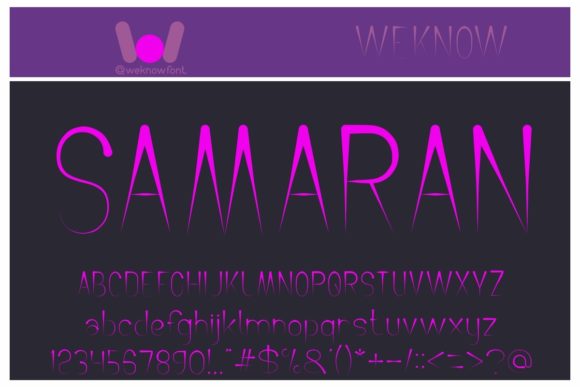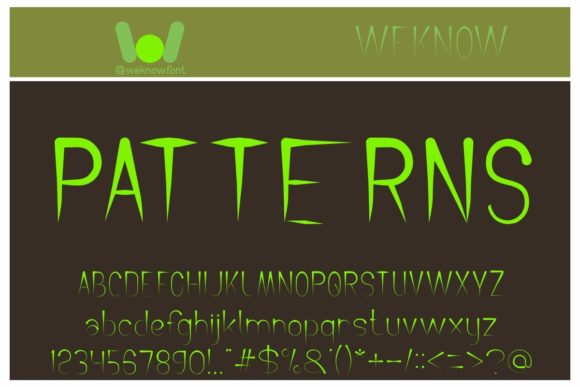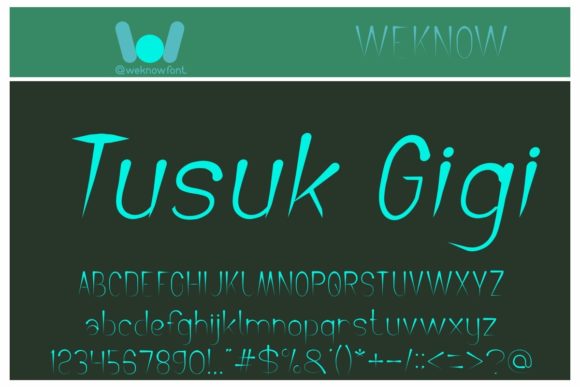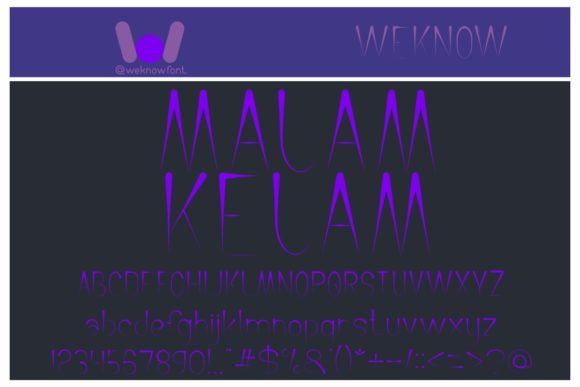
Crochet Pattern Font: Elevate Your Designs with a Clean and Cool Display Font
Crochet is a clean, thin lettered and cool display font that has been making waves in the design world. Simple yet with a strong visual effect, this font will instantly make your creation more appealing than any others. In this article, we’ll dive into the world of Crochet Pattern Font, exploring its features, benefits, and uses, particularly for designers and crafters.
What is Crochet Pattern Font?
Crochet Pattern Font is a typeface designed to resemble handwritten crochet patterns. Its clean and thin lettering gives it a modern and sleek look, making it perfect for designs that require a touch of elegance and sophistication. The font’s simplicity is its greatest strength, allowing it to work seamlessly with a wide range of design styles and themes.
Key Features of Crochet Pattern Font
- Clean and Thin Lettering: The font’s clean and thin lettering makes it perfect for designs that require a modern and sleek look.
- Strong Visual Effect: Despite its simplicity, Crochet Pattern Font has a strong visual effect that will instantly elevate your designs.
- High Versatility: The font’s simplicity makes it highly versatile, allowing it to work seamlessly with a wide range of design styles and themes.
- Easy to Read: The font’s clear and legible design makes it easy to read, even at small sizes.
Benefits of Using Crochet Pattern Font
So, why should you use Crochet Pattern Font in your designs? Here are just a few benefits:
- Instantly Elevate Your Designs: With its strong visual effect, Crochet Pattern Font will instantly elevate your designs and make them more appealing to your audience.
- Perfect for Crafting and DIY Projects: The font’s handmade, crochet-inspired look makes it perfect for crafting and DIY projects, such as crochet patterns, knitting designs, and sewing projects.
- Great for Logos and Branding: The font’s modern and sleek look makes it perfect for logos and branding, particularly for businesses that want to convey a sense of elegance and sophistication.
- Easy to Pair with Other Fonts: The font’s simplicity makes it easy to pair with other fonts, allowing you to create unique and visually appealing typography.
Using Crochet Pattern Font for Crochet and Knitting Designs
As a crafter or designer, you’re probably always on the lookout for new and exciting ways to present your crochet and knitting designs. Crochet Pattern Font is a great way to add a touch of elegance and sophistication to your patterns and designs.
Here are a few ways you can use Crochet Pattern Font for your crochet and knitting designs:
- Crochet Patterns: Use Crochet Pattern Font to create beautiful and easy-to-read crochet patterns that will impress your audience.
- Knitting Designs: The font’s clean and modern look makes it perfect for knitting designs, such as knitting patterns, yarn reviews, and knitting tutorials.
- DIY Projects: Use Crochet Pattern Font to create visually appealing DIY projects, such as sewing patterns, embroidery designs, and paper crafting projects.
Tips for Using Crochet Pattern Font
Here are a few tips for using Crochet Pattern Font in your designs:
- Use it for Headings and Titles: The font’s strong visual effect makes it perfect for headings and titles, where you want to grab the reader’s attention.
- Pair it with Other Fonts: Don’t be afraid to pair Crochet Pattern Font with other fonts to create unique and visually appealing typography.
- Experiment with Different Sizes and Colors: The font’s simplicity makes it versatile, so feel free to experiment with different sizes and colors to find the perfect look for your design.
In conclusion, Crochet Pattern Font is a clean, thin lettered and cool display font that is perfect for designers and crafters looking to elevate their designs. With its strong visual effect, high versatility, and ease of use, this font is sure to become a staple in your design toolkit. Whether you’re creating crochet patterns, knitting designs, or DIY projects, Crochet Pattern Font is a great choice for adding a touch of elegance and sophistication to your work.